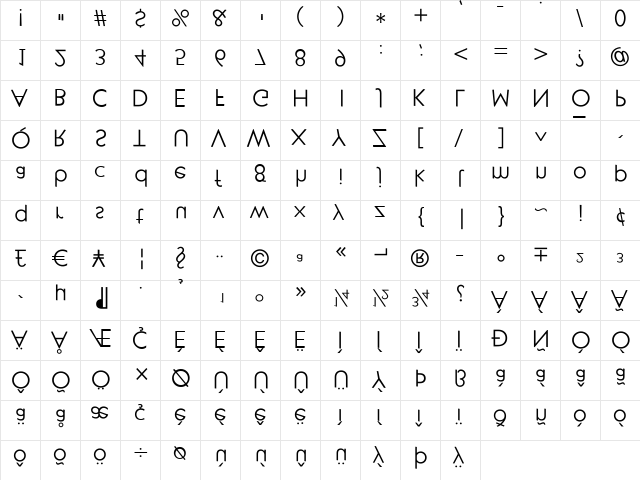
KlillForTypesetters Regular
Design Context for KlillForTypesetters Typeface
KlillForTypesetters is a composed and adaptable typeface that performs quietly and consistently across a wide range of design contexts.
Pro Tip: Use KlillForTypesetters in both headline and body roles to test its range before committing to a single application.